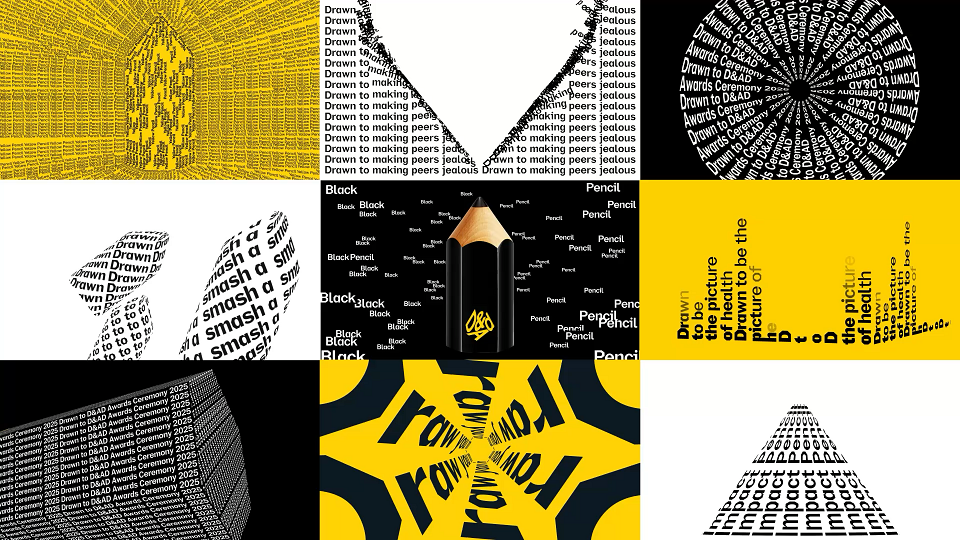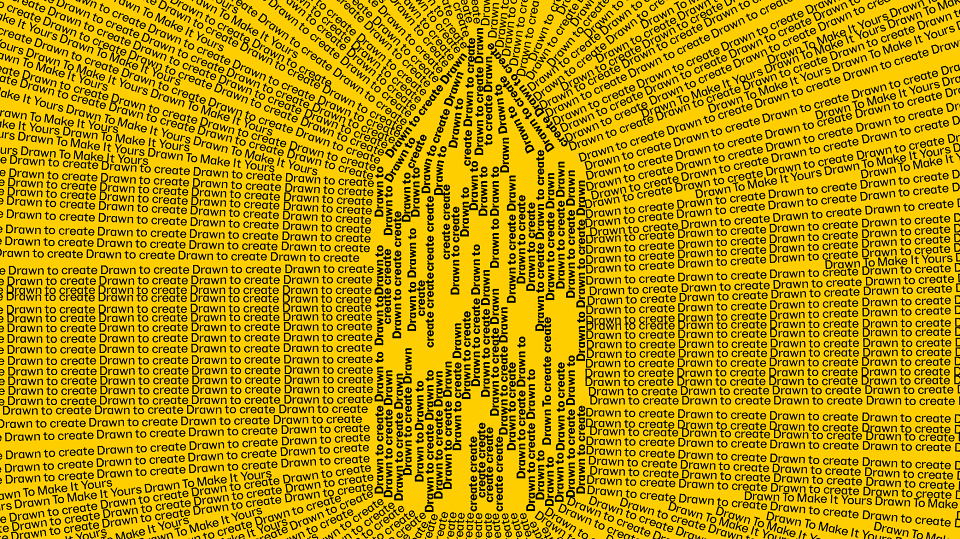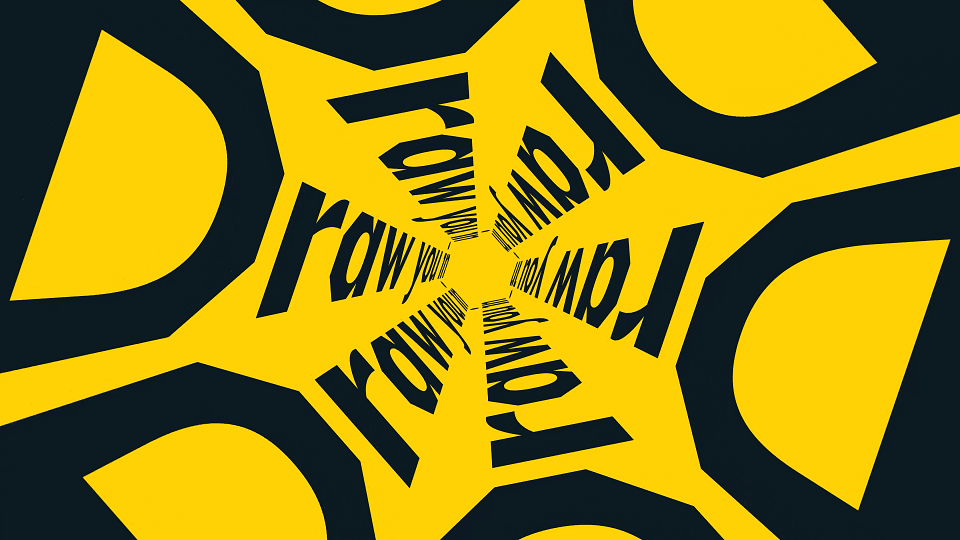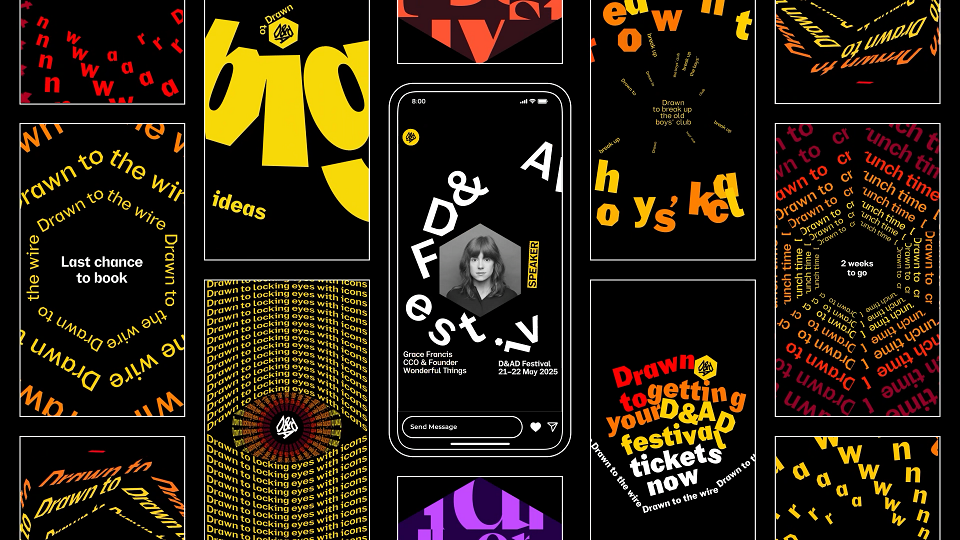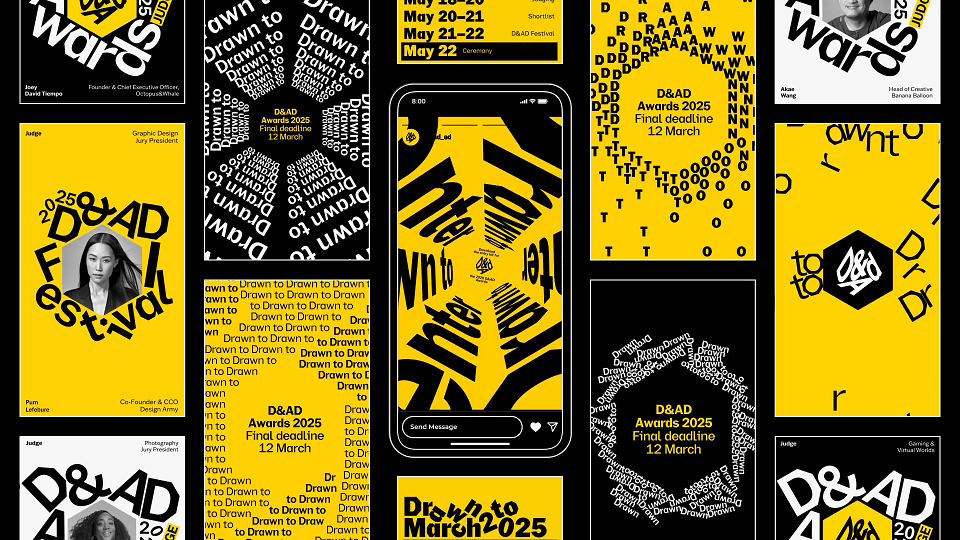
Studio DRAMA London
A custom display typeface created for the 2025 D&AD Festival. Inspired by the iconic pencil award, it blends sharp geometry and legacy cues with bold, designer-first functionality.
D&AD Custom Typeface